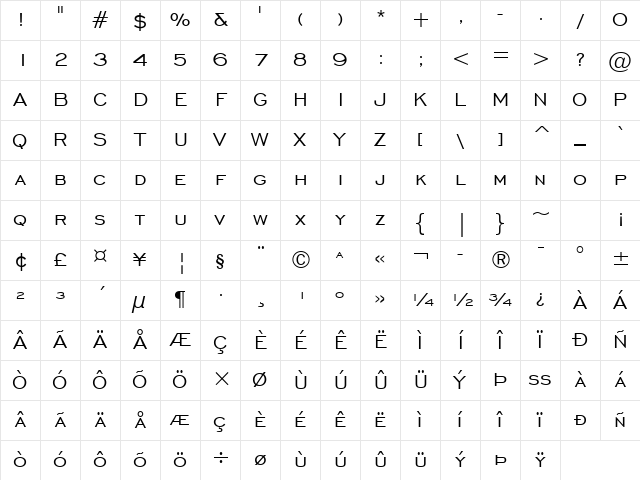
Engravers Gothic CE takes a clean, functional approach - its unadorned letterforms prioritise legibility and work reliably across screen and print environments.
Font Pairing: Works well alongside a characterful serif or display font that can carry the expressive load while Engravers Gothic CE handles the functional copy.
Pro Tip: Use Engravers Gothic CE for UI labels, navigation, and short-form body copy where clean legibility is the priority.